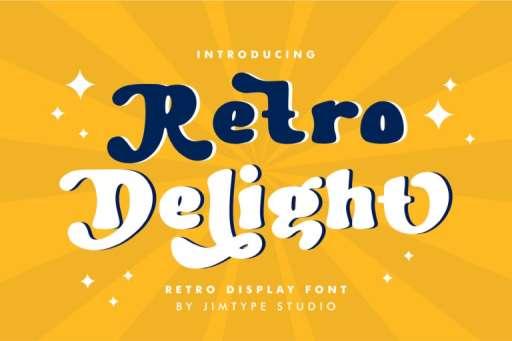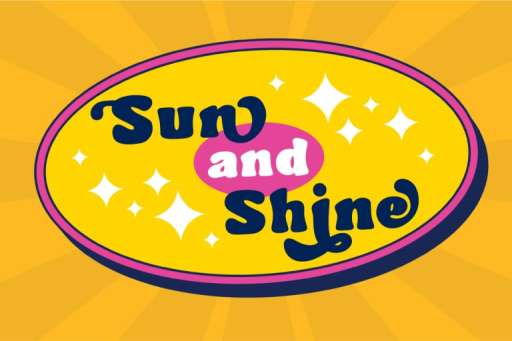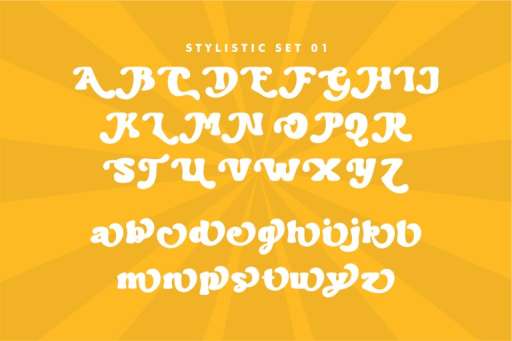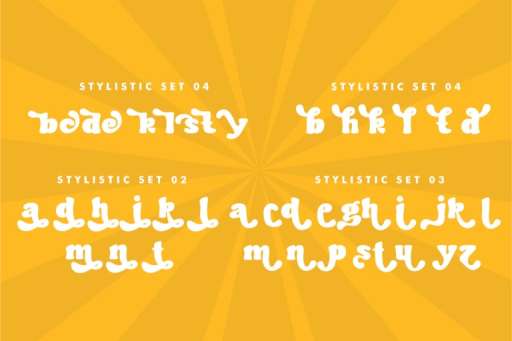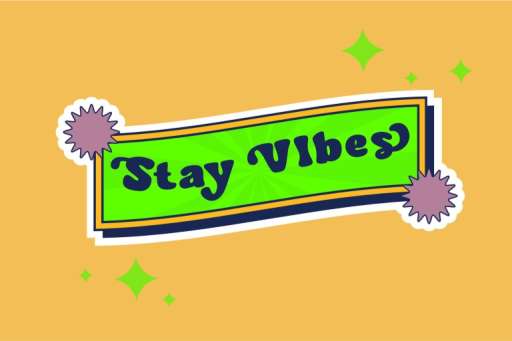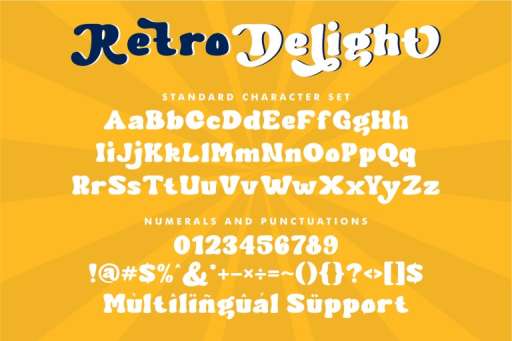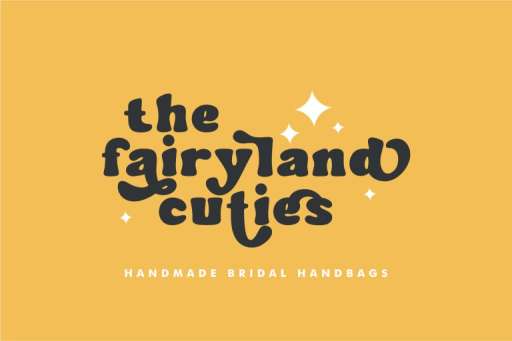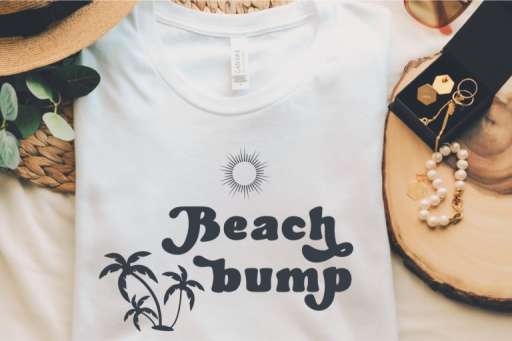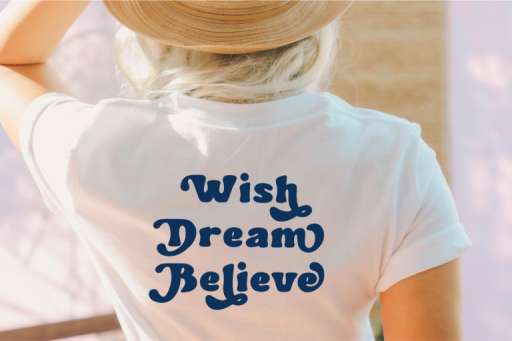
Retro Delight – Retro Groovy Font from Jimtype Studio
Introducing our newest font to the design world: Retro Display Font “Retro Delight“! Designed with the perfect blend of nostalgia, cute and girly, this font is a fun choice for all branding projects, shop logos, websites, projects with a childish theme, and girly.
Capture the hearts of your clients and evoke a sense of joy with Retro Delight Font. Each letter is carefully crafted with charming curls and adorable accents, reminiscent of carefree childhood. Whether you’re designing invitations, greeting cards, or logo shops, this font will instantly add a touch of vintage charm and sweetness to your creations.
With its retro style and feminine feel, Retro Delight stands out as a must-have font for anyone looking to create charming and eye-catching designs. Its cute curves and cute decoration will make your project really unique and memorable.
Features :
- Basic Latin A-Z and a-z
- Numbers and punctuation
- Multilingual Support
- Stylishtic Set